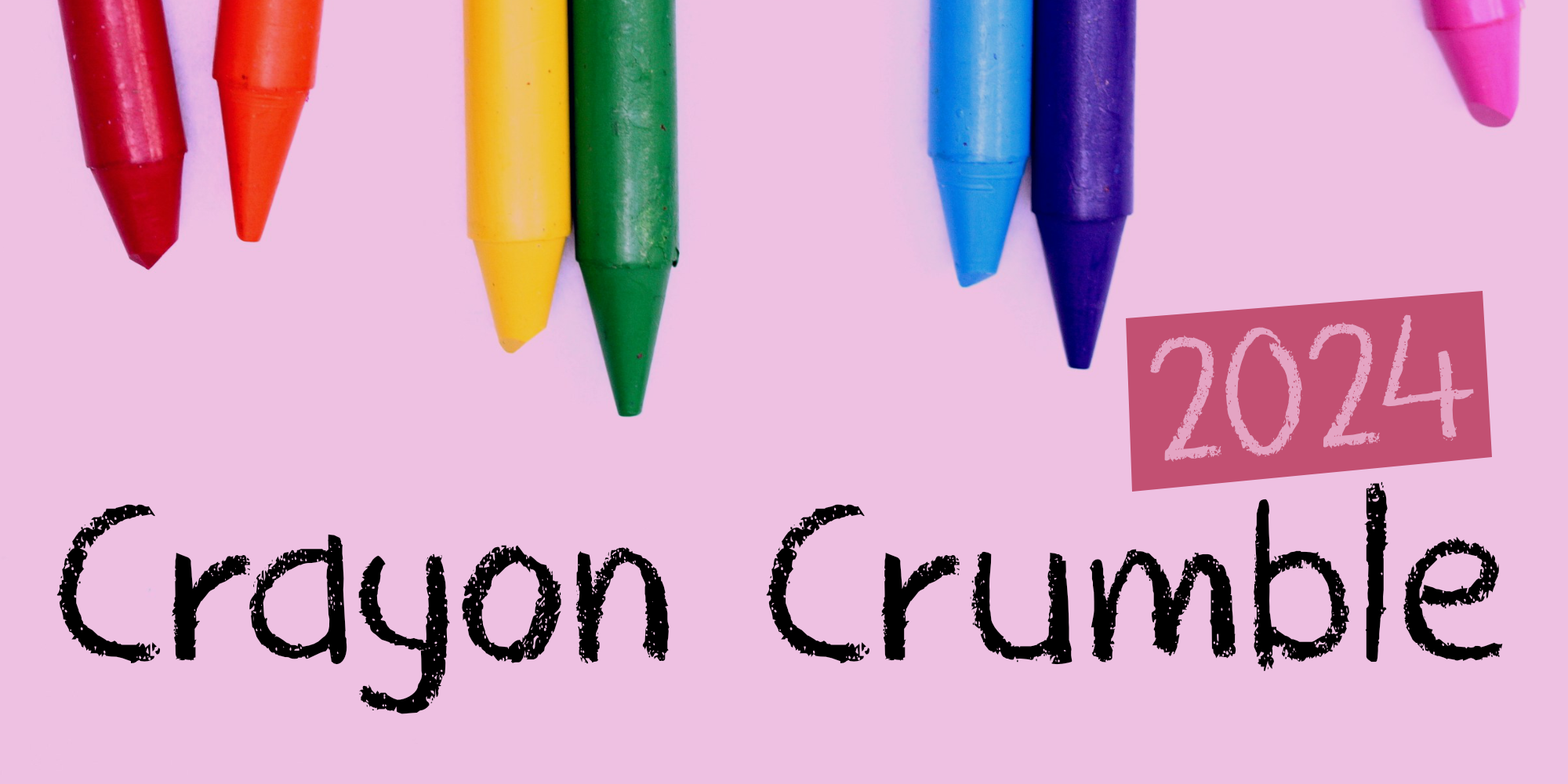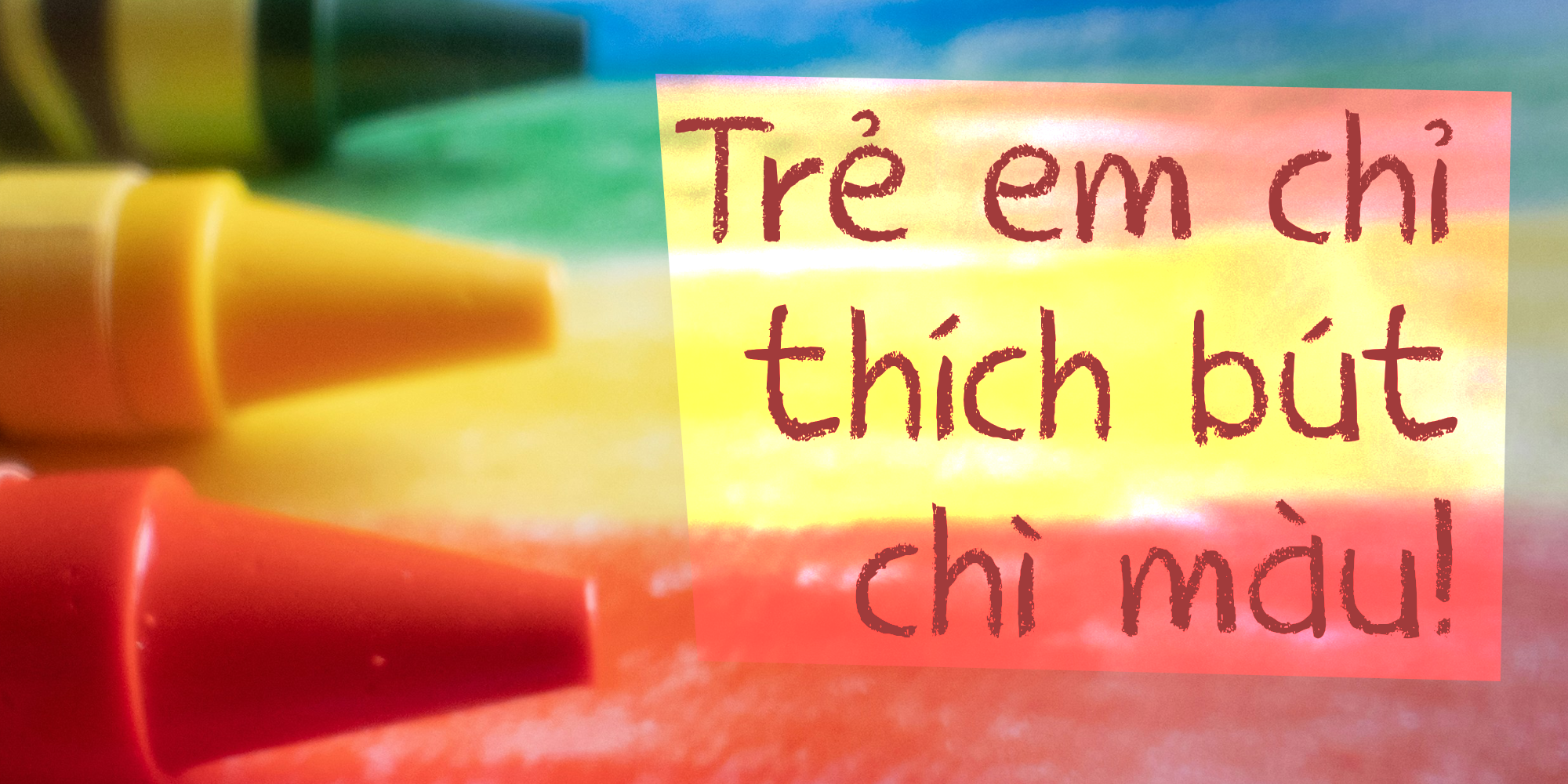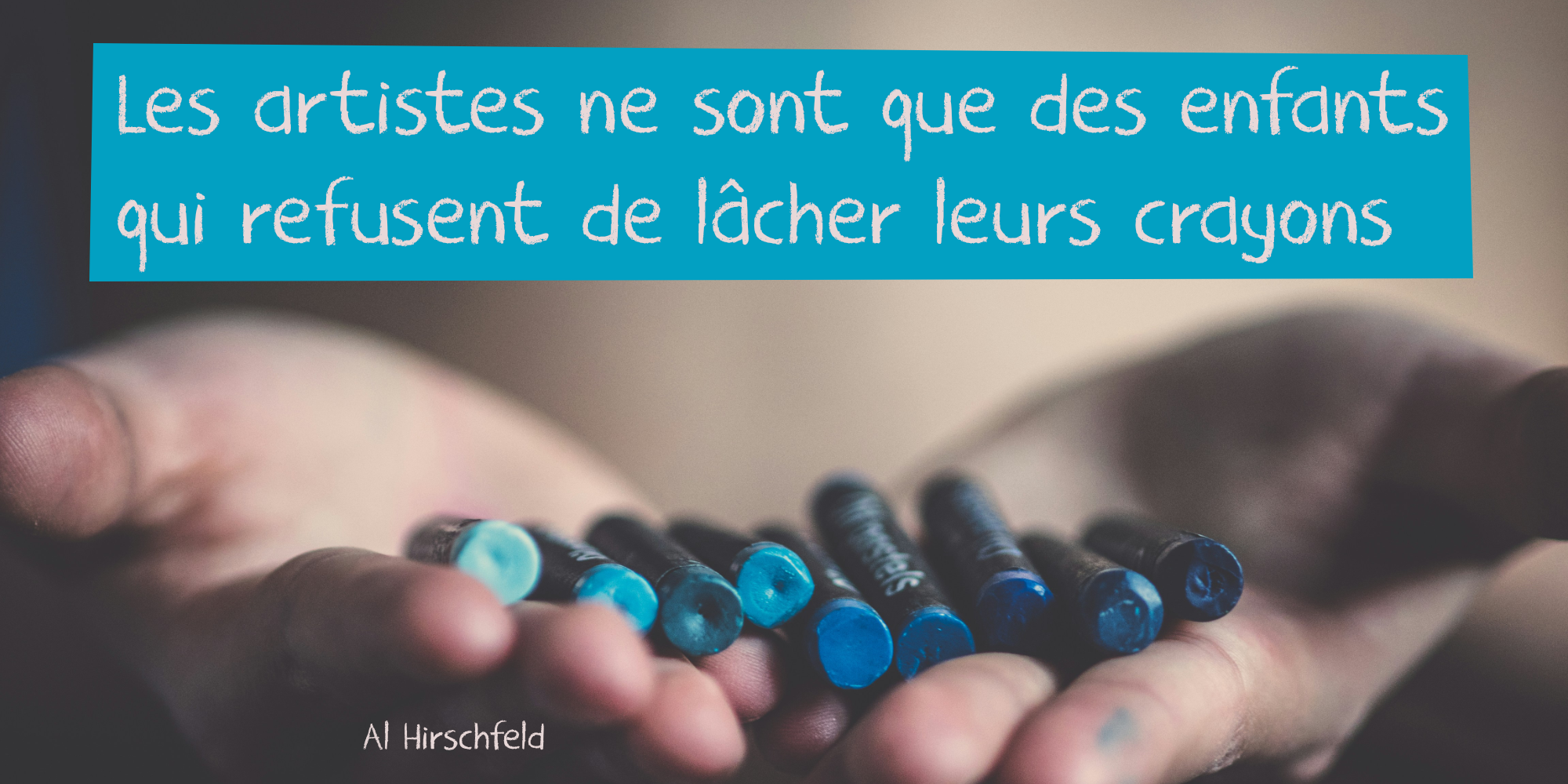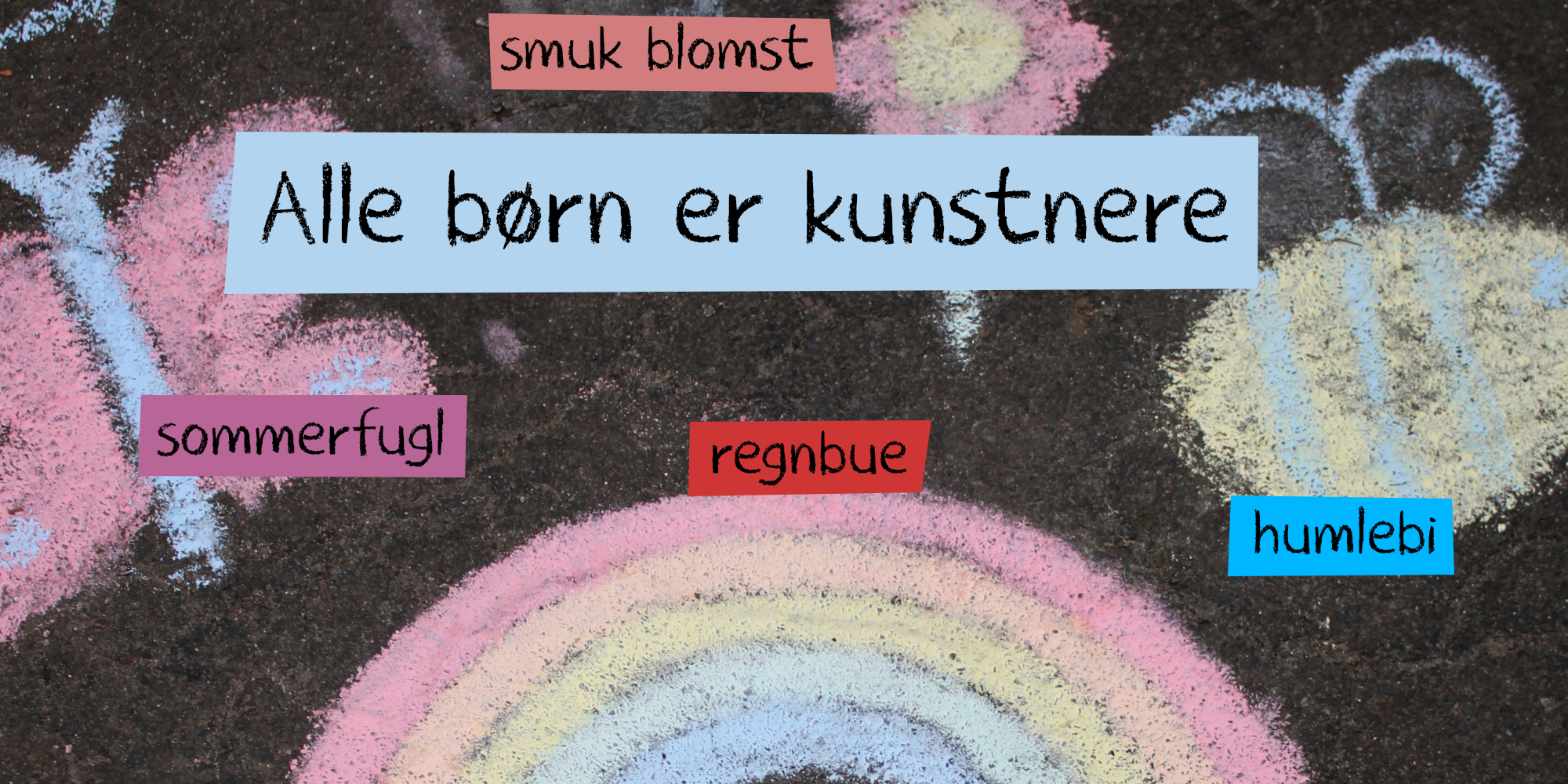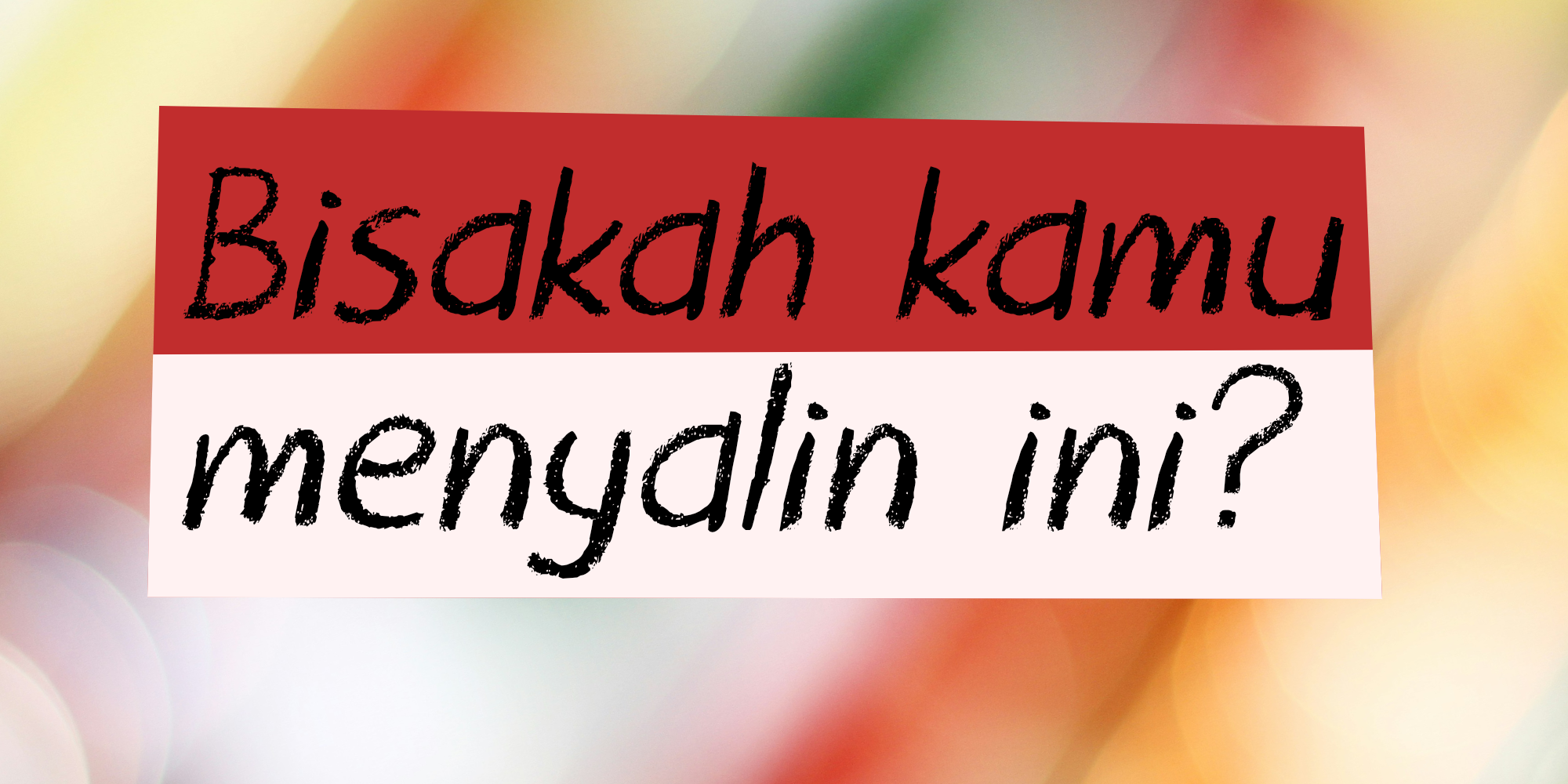
Crayon Crumble 2024 (1 font)
This 2024 version is an update - and yes, it now comes with language support and new glyphs, but I have also tweaked some of the rougher glyphs. In other words, it may look like the old version, but it’s a new font altogether.